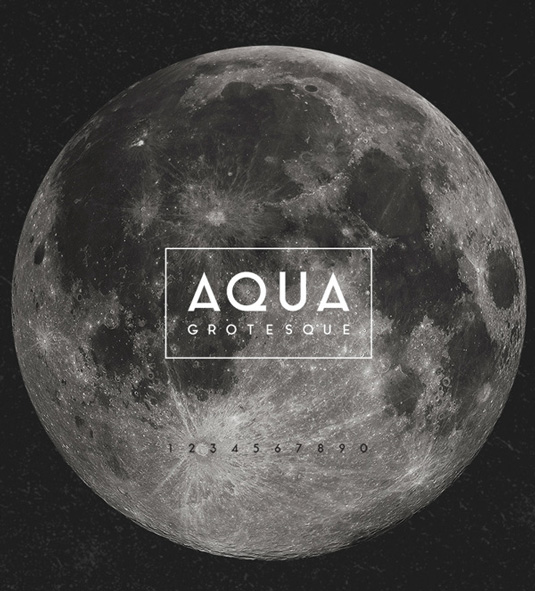
Font of the day: Aqua Grotesque
Aqua Grotesque by Laura Pol
Graphic designer Laura Pol was inspired by the 1940s when creating free font Aqua Grotesque. The beautiful and elegant design comes complete with a full set of upper and lowercase letters and numbers.